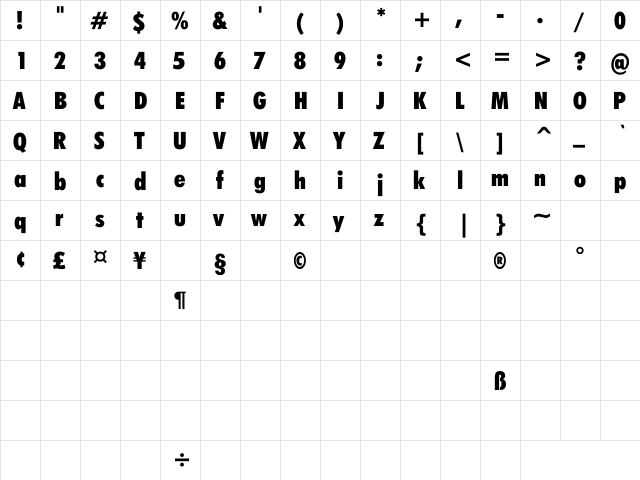
Futuri Condensed Ext Bold Regular Font Preview
Design Context for Futuri Condensed Ext Bold Typeface
Futuri Condensed Ext Bold has a distinctly futuristic character, with geometric precision and clean angles that feel at home in technology, gaming, and sci-fi contexts. Its bold stroke weight gives it real presence on the page. The condensed width makes it efficient for tight spaces without sacrificing legibility.
Pro Tip: Try Futuri Condensed Ext Bold with generous letter-spacing in UI labels and navigation — the geometric forms benefit from room to breathe.